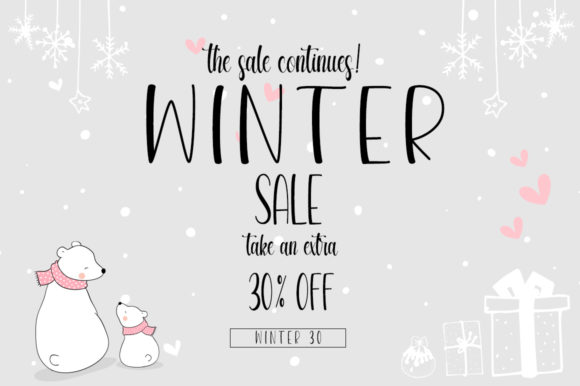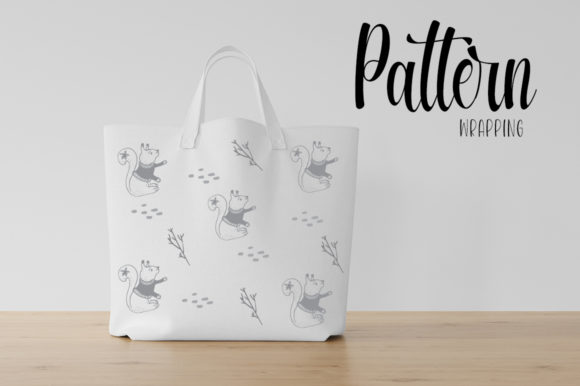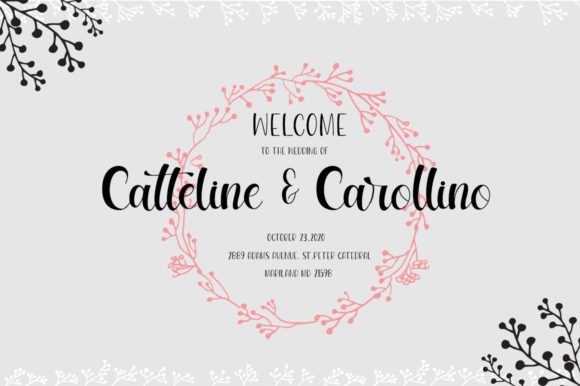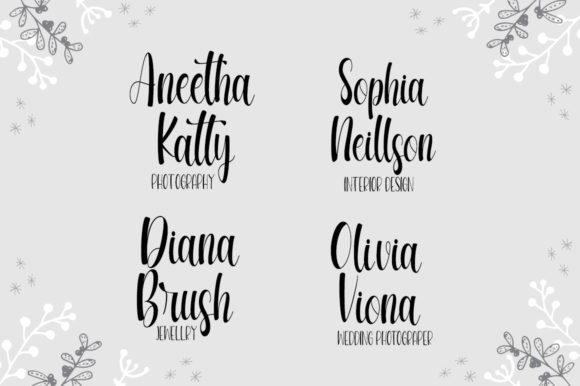
Unlock the Magic of Winter’s Charm
There’s something special about a crisp winter morning – the soft light, the gentle snowfall, and the cozy atmosphere that fills your heart with warmth. As a designer, have you ever found yourself in a moment like this, feeling inspired to create something beautiful and unique? For me, it’s moments like these that spark the idea for a new project, and I’m excited to share with you a tool that will help you capture that winter wonderland feel – the Beautiful Winter Day Font.
This modern calligraphy font is more than just a pretty face; it’s a powerful tool that will allow you to create stunning, hand-made typography in an instant. Whether you’re designing wedding invitations, social media posts, or stationery art, the Beautiful Winter Day Font is the perfect addition to your toolkit. Its versatility and charm make it a valuable asset for any designer looking to add a touch of elegance and sophistication to their work.
Beautiful Winter Day Font Key Features
- Font Family: Beautiful Winter Day Font is a unique, hand-drawn font designed to evoke a sense of winter wonder. It includes a range of characters, including uppercase and lowercase letters, numbers, and punctuation marks.
- Size: The font comes in a single size, with each character carefully crafted to ensure consistency and coherence.
- Resolution: The font is optimized for high-resolution displays, ensuring that it looks crisp and clear on screens of all sizes.
- Unique Characteristics: Beautiful Winter Day Font features a distinctive, hand-drawn style with intricate details and subtle texture, giving it a unique and charming appearance.
Designer Review: Beautiful Winter Day Font
I recently had the chance to work with the “Beautiful Winter Day Font”, and I must say, it’s a unique and lovely addition to any design project.
- Warm and Cozy Feel – This font is perfect for projects that require a winter or festive theme. It evokes feelings of warmth and coziness, making it ideal for holiday-themed designs, winter wonderland scenes, or even cozy coffee shop branding.
- Handwritten Feel – The Beautiful Winter Day Font has a beautiful, handwritten feel to it, which makes it perfect for adding a touch of personality to your designs.
- Customization Options – The font is available in various styles, including bold and italic, which makes it easy to customize and match the tone of your design project.
- Not Ideal for Formal Projects – While the Beautiful Winter Day Font is perfect for winter-themed projects, it may not be the best choice for formal or professional projects that require a more serious tone.
- May Not Be Suitable for Small Text – Due to its handwritten nature, the font may not be the best choice for small text or body copy, as it can be difficult to read.
Overall, I’m impressed with the Beautiful Winter Day Font, and I think it’s a great addition to any designer’s toolkit. While it may have some limitations, it’s perfect for projects that require a warm, cozy, and handwritten feel.
The Beautiful Winter Day font is ideal for winter-themed projects, such as holiday cards, snowflake designs, and festive posters.
For best results, pair the font with a color scheme that complements the winter theme, such as shades of blue, green, and red.
Experiment with different font sizes and styles to create a visually appealing design.